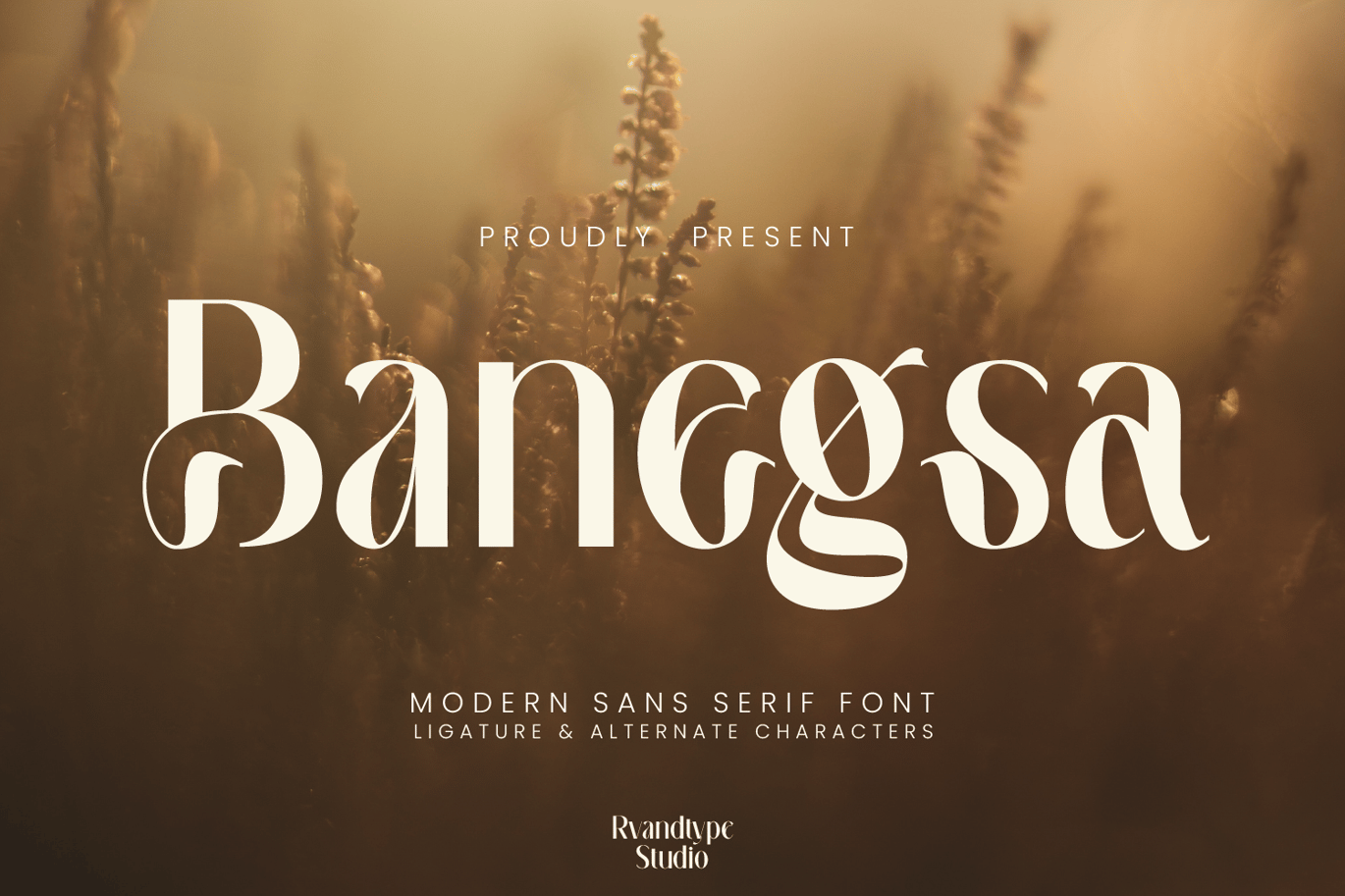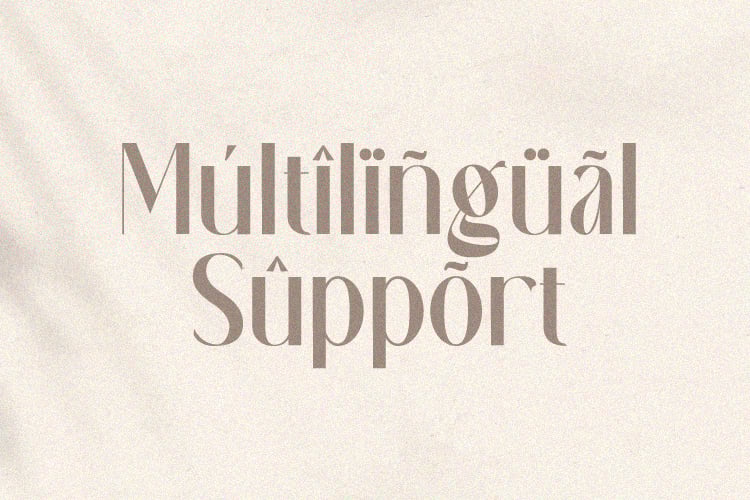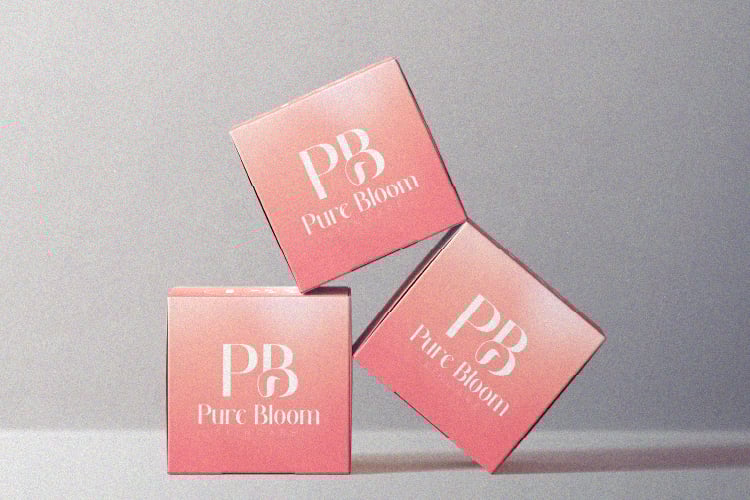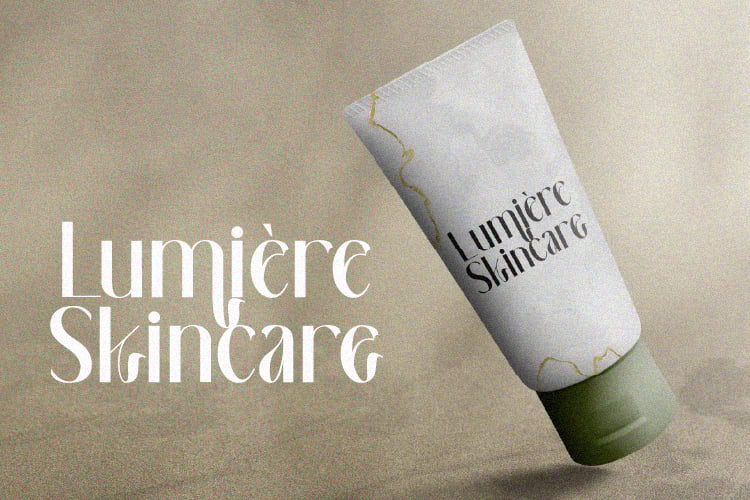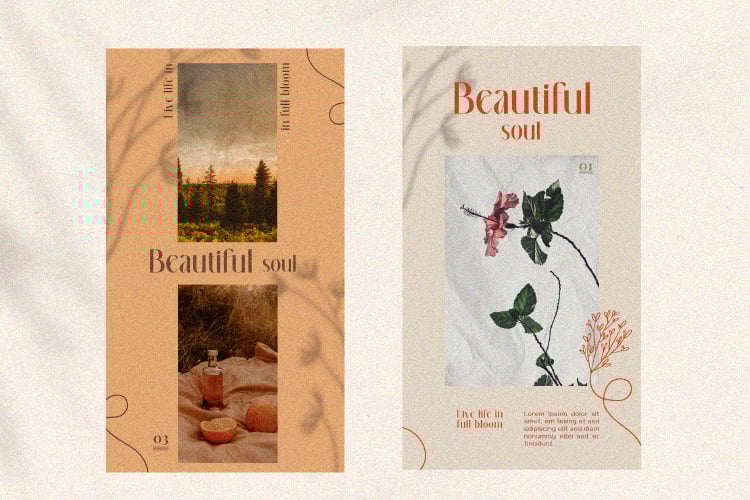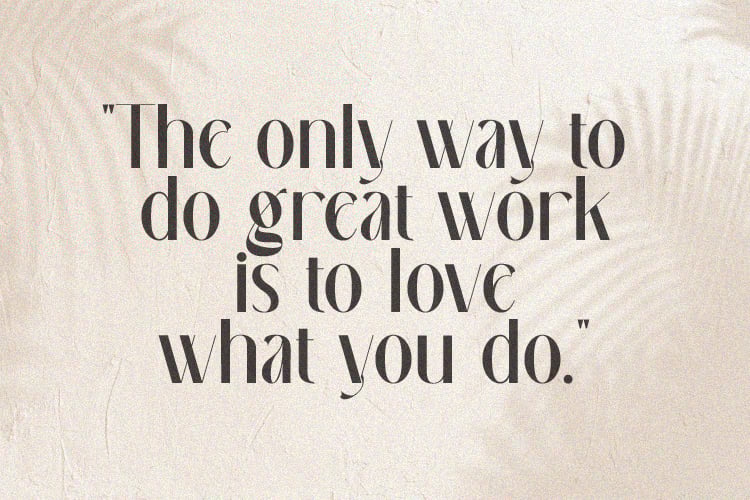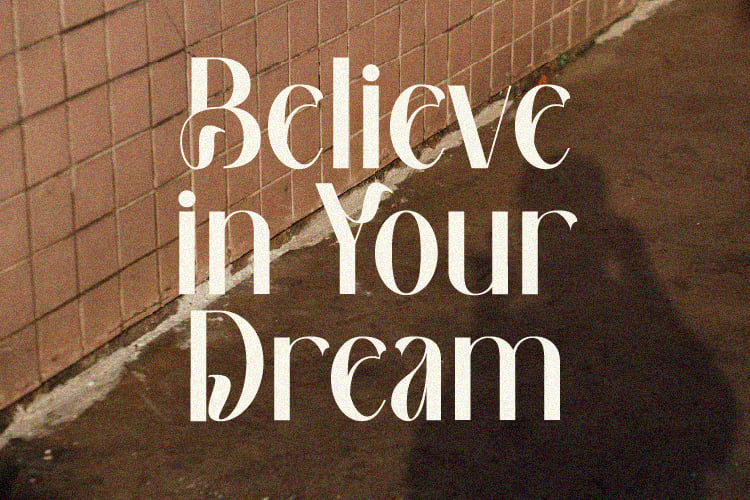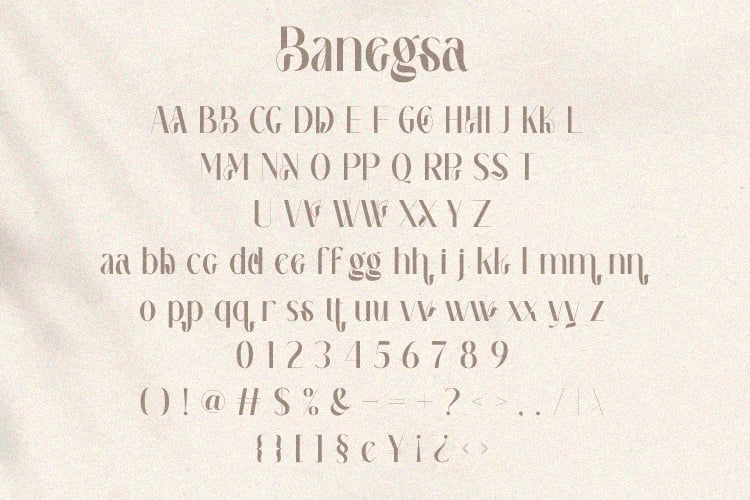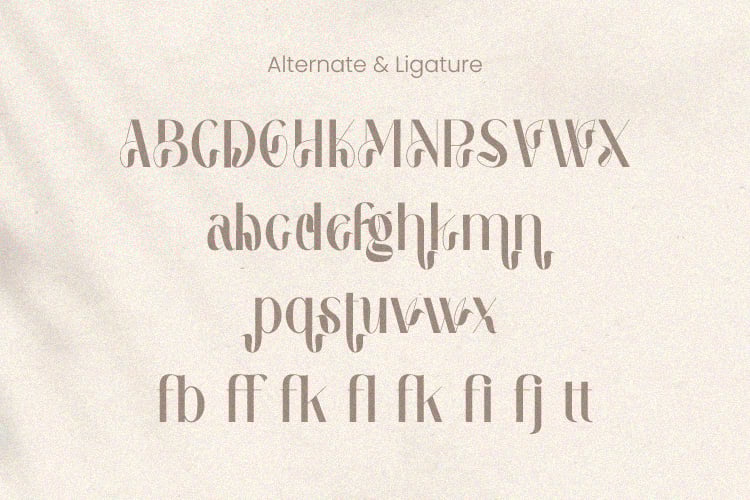
Banegsa Luxury Font
Banegsa is a sans serif font. Its elegant and cool look makes it the perfect choice for logos, branding, invitations, stationery, wedding designs, social media posts, and so much more. Banegsa Font is PUA encoded which means you can access all of the glyphs.
- uppercase & lowercase
- numbers and punctuation
- multilingual
- Alternate Characters